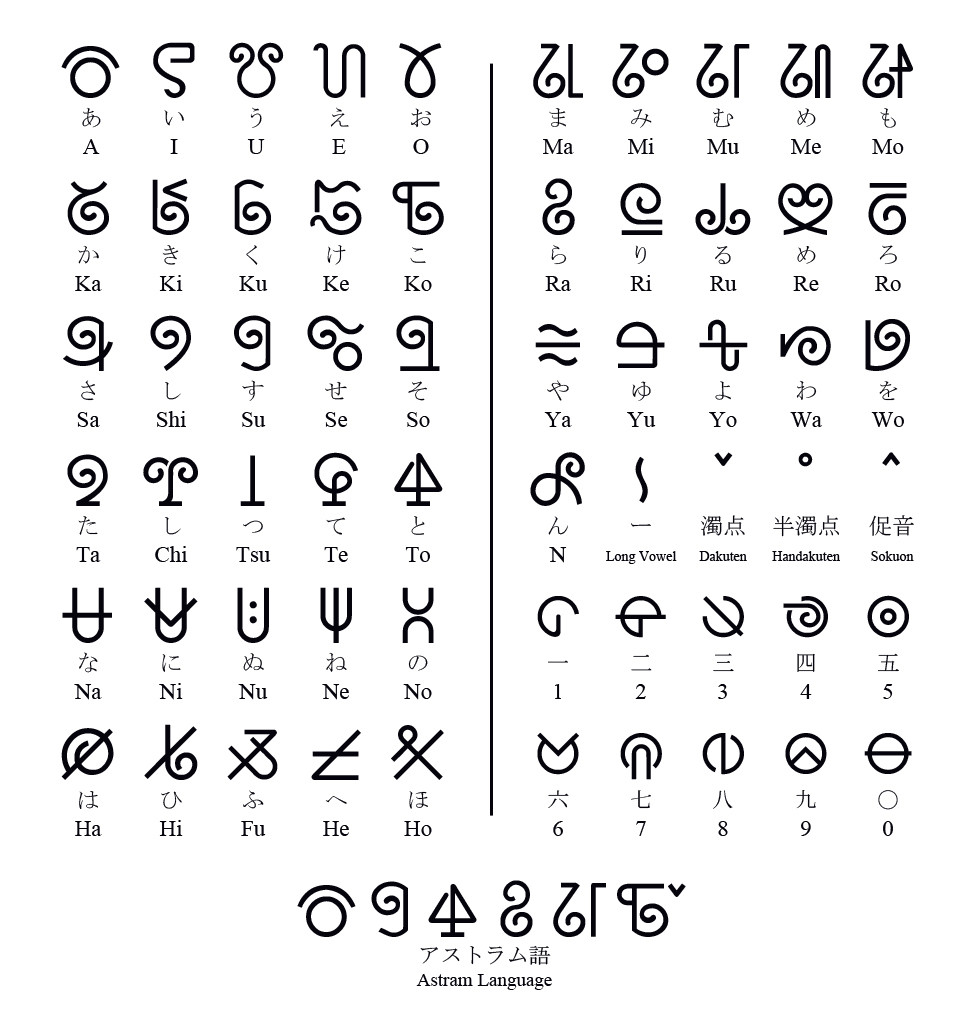
Here is my project that I've been working on for the past few days. It's the Astram Language Font from The Another World (Ni No Kuni). This font has been designed to work with Hiragana and Katakana symbols. So to properly use it, type in, or use the character chart in windows to use the proper symbols.I know that sounds difficult, but I really couldn't do it any other way and do it justice.
EDIT: There are now two fonts in here. One is centered, so it is more uniform. I suggest using this font, but I left the original, in case anyone cared to use it.
Interesting. Very interesting. It is a syllabic script, that's even more fascinating. What was the idea behind the shapes of symbols. Of course, I can see common consonant bases, but this is not all. Do tell me more about it! And where can one find the grammar and dictionary of this language?
I've updated the font now, so it has a centered version in it. Looks more uniform. I suggest using it, if you're going to.
Well, the symbols come from the game The Another World (Ni No Kuni) for the Nintendo DS. It's based on Japanese Hiragana and Katakana syllables. Basically a simplified form of Japanese.